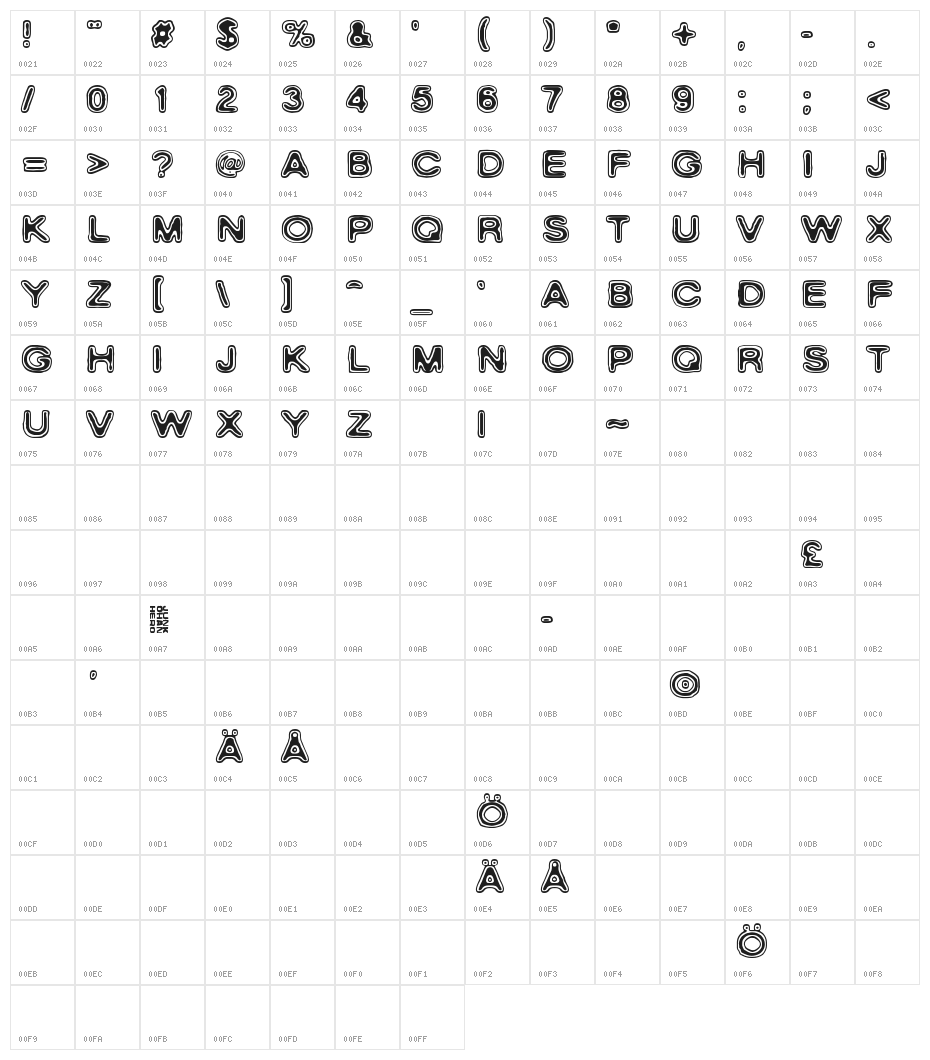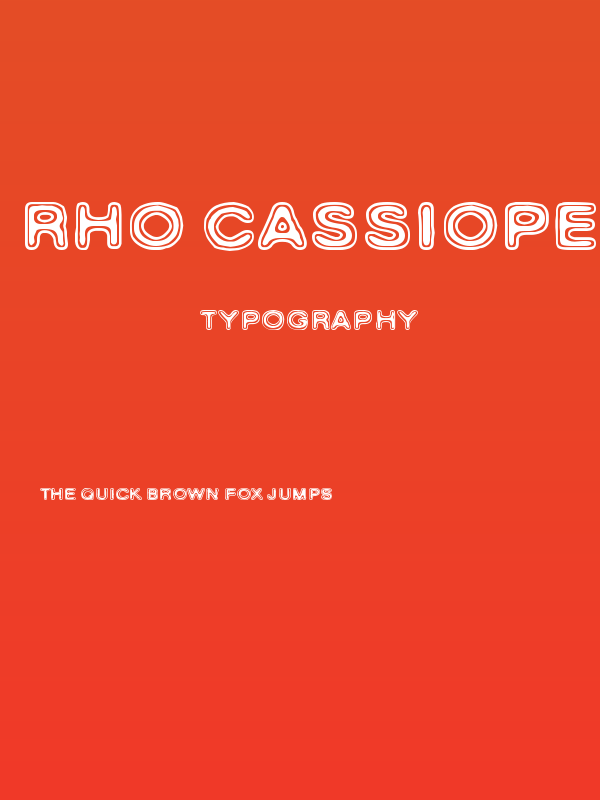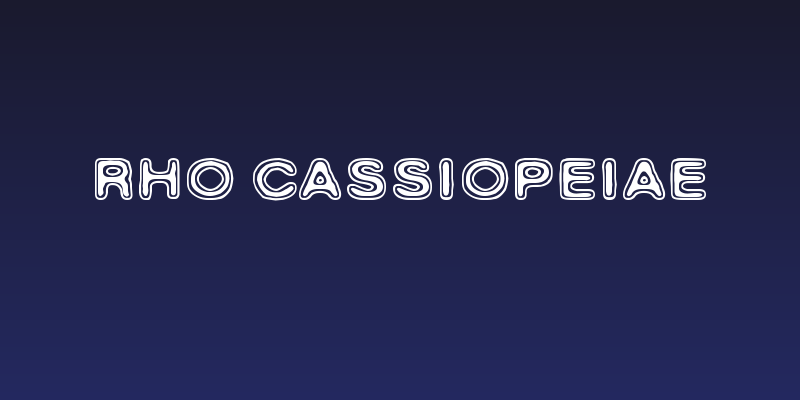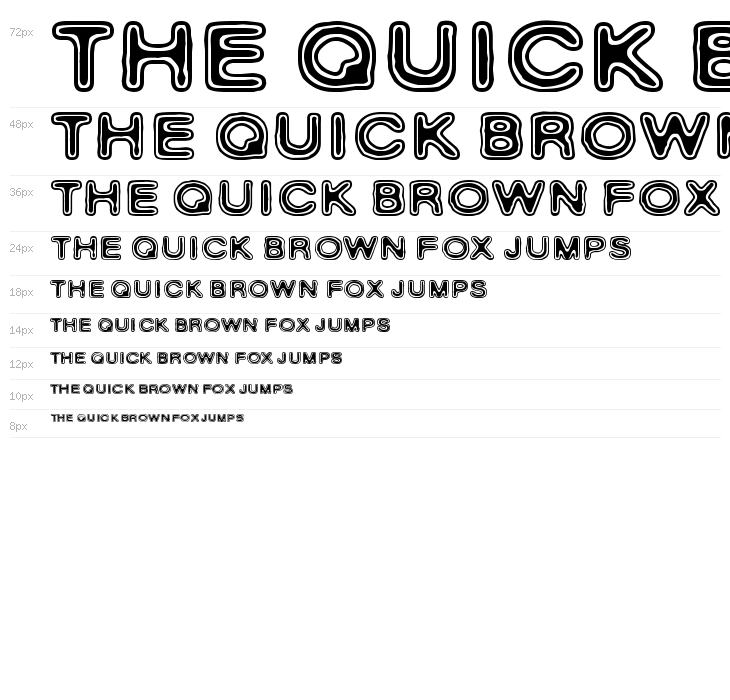
Rho Cassiopeiae Font
Rho Cassiopeiae Description
This font features a bold, playful style with a distinct outline that gives each character a three-dimensional appearance. The letters are uppercase and lowercase, with a consistent thickness throughout, creating a cohesive look. The numbers and special characters follow the same design principles, ensuring uniformity across all elements. The font's unique outline adds a layer of depth, making it stand out in any design. Its playful and bold nature makes it ideal for projects that require a fun and engaging aesthetic.
| Overall Style | Playful, Modern |
| Use Case | Headlines, Posters, Branding |
| Proposed Projects | Ideal for children's books, playful branding, posters, and any design requiring a fun, engaging aesthetic. |